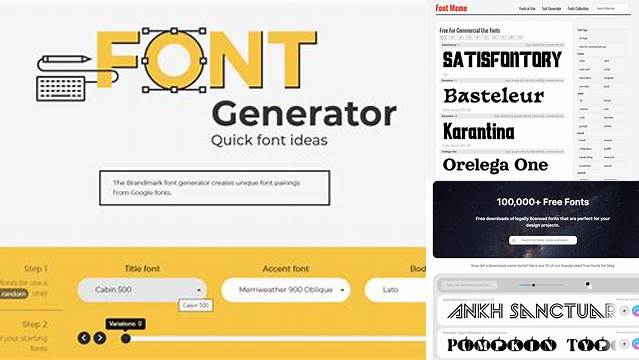
Free Font Maker: Create Fonts Online Instantly
Creating your own fonts can seem like a daunting task, but guys, it doesn't have to be! There are tons of amazing, free font creator tools available online that don't even require a download. That's right, you can jump right into designing your unique typeface without cluttering your computer with extra software. This article will walk you through the wonderful world of free font creation, exploring various tools and techniques to help you unleash your inner font designer. We'll cover everything from basic font design principles to specific software recommendations, ensuring you have all the knowledge you need to get started. So, let's dive in and discover how easy and fun it can be to craft your own fonts!
1. Online Font Maker: No Download Required
Okay, so you're itching to create your own font, but the thought of downloading software makes you cringe? I feel you! Luckily, there are some fantastic online font maker options that require absolutely no download. These tools are a game-changer for anyone who wants to dip their toes into font design without committing to hefty programs. One of the biggest perks of using an online font maker is the convenience. You can access them from any computer with an internet connection, making it super easy to work on your font projects on the go. Whether you're at home, at a coffee shop, or even traveling, your font design studio is always just a few clicks away. Plus, these tools often boast intuitive interfaces, making the design process smooth and enjoyable, even if you're a complete beginner. Many online font makers also offer a library of pre-made glyphs and templates, which can be a huge help for getting started or experimenting with different styles. You can customize these existing elements or start from scratch, the choice is entirely yours!
2. Best Free Font Creation Tools Online
So, you're ready to dive in, but which free font creation tools are actually worth your time? There are a bunch out there, but some definitely shine brighter than others. Finding the best tool for you depends a lot on your skill level and what you want to achieve. Are you looking for something super simple and user-friendly, or are you aiming for more advanced features and customization options? One popular option is Calligraphr, which lets you create a font based on your own handwriting. You simply download a template, fill it in with your letters and symbols, and then upload it to the website to generate your font. It's a fantastic choice for creating personalized, hand-drawn fonts. Another great tool is FontStruct, which uses a modular approach to font design. You build your glyphs using geometric shapes, making it perfect for creating unique, geometric-style fonts. FontStruct also has a large community of users who share their creations, so you can find tons of inspiration and even collaborate with other designers. And don't forget about BirdFont, a free and open-source font editor that offers a wide range of features for more advanced users.
3. Free Font Generator: Create Fonts Instantly
Want a font, like, yesterday? A free font generator might be your new best friend. These tools are designed for speed and ease of use, allowing you to whip up a unique font in minutes. While they might not offer the same level of control and customization as more advanced font editors, they're perfect for quick projects or when you need a specific font style in a pinch. The beauty of a free font generator lies in its simplicity. Typically, you'll be presented with a set of parameters or templates to choose from. You might be able to select a font style, adjust the thickness of the lines, or add a specific slant. Some generators even allow you to upload an existing font as a base and then tweak it to your liking. While the results might not be as polished as a font created from scratch, they can still be surprisingly effective, especially for headings, logos, or other design elements where a unique touch is desired. Plus, using a font generator is a fantastic way to experiment with different font styles and get a feel for font design without investing a ton of time and effort.
4. Create Your Own Font Online for Free
The idea of create your own font online for free might sound too good to be true, but trust me, it's totally possible! There are a plethora of online tools that empower you to design your very own typeface without spending a dime. This opens up a world of creative possibilities, allowing you to craft fonts that perfectly match your personal style or brand identity. The process of creating your own font online is often surprisingly straightforward. Many platforms offer intuitive interfaces with drag-and-drop functionality, making it easy to shape and manipulate glyphs. You can start from scratch, using drawing tools to create each letterform individually, or you can modify existing templates to speed up the process. One of the biggest advantages of using online font creation tools is the accessibility they provide. You can work on your fonts from anywhere with an internet connection, and you don't need to worry about installing or updating software. Plus, many online platforms offer collaboration features, allowing you to work on font projects with friends or colleagues.
5. Font Design Software Free Online
When you're venturing into font creation, finding the right font design software free online is crucial. The good news is that several robust options are available that won't break the bank. These platforms offer a range of features to help you craft unique and professional-looking fonts. When evaluating font design software, consider factors like ease of use, the availability of tutorials and support, and the range of features offered. Some software focuses on simplicity and intuitive interfaces, making them ideal for beginners. Others provide more advanced tools and options for experienced designers who want to fine-tune every detail of their fonts. Many free online font design software options include features like glyph editing, kerning and tracking adjustments, and the ability to import and export different font formats. Some even offer collaborative features, allowing multiple users to work on the same font project simultaneously. Experiment with a few different platforms to see which one best suits your needs and workflow.
6. Free Font Editor Online: No Download
Need to tweak an existing font or create a variation? A free font editor online that requires no download is a lifesaver! These tools allow you to modify existing fonts or create entirely new ones without the hassle of installing software. This is especially handy if you need to make a quick adjustment to a font you're already using or if you want to experiment with different font styles without committing to a specific program. The functionality of a free font editor online can vary, but most offer basic editing features such as modifying glyph shapes, adjusting spacing and kerning, and changing font weights and styles. Some editors also include more advanced features like adding ligatures or creating alternate glyphs. The convenience of using an online editor is undeniable. You can access it from any computer with an internet connection, and your work is often saved automatically in the cloud. This makes it easy to collaborate with others or to continue working on your font projects from different locations.
7. Online Font Creator for Free: Web-Based Tools
For those who love the flexibility of web-based applications, an online font creator for free is the perfect solution. These tools eliminate the need for software downloads, allowing you to design fonts directly in your browser. This accessibility makes font creation more convenient than ever, as you can work on your projects from any device with an internet connection. The best online font creators offer a range of features to support your design process. This often includes tools for drawing glyphs, adjusting spacing and kerning, and generating font files in various formats. Some platforms also provide templates and pre-made elements that can help you get started or experiment with different styles. The web-based nature of these tools also facilitates collaboration. Many platforms allow you to share your fonts with others, get feedback, or even work on projects together in real-time. This can be especially beneficial for team projects or for designers who want to gather input from their peers.
8. Free Font Making Software Online
If you're serious about font design but don't want to shell out a fortune, free font making software online is your answer. There are some surprisingly powerful tools available that offer a wide range of features without costing a dime. These platforms empower you to create professional-quality fonts from the comfort of your browser. When choosing free font making software, consider your specific needs and skill level. Some software is designed for beginners, with intuitive interfaces and helpful tutorials. Others cater to more experienced designers, offering advanced features and customization options. Key features to look for include glyph editing tools, kerning and tracking controls, the ability to import and export various font formats, and support for OpenType features like ligatures and alternates. Many free online font making software options also have active communities, where you can find inspiration, get feedback, and learn from other designers.
9. Free Online Font Generator: Design Your Own
Ready to unleash your creativity? A free online font generator lets you design your own typeface without any software downloads. These tools are perfect for experimenting with different styles and creating unique fonts for your projects. The process is often surprisingly simple. Most free online font generators offer a user-friendly interface where you can draw glyphs, adjust letter spacing, and customize other font characteristics. Some generators even provide templates or pre-designed elements that you can use as a starting point. While these tools might not offer the same level of control as professional font design software, they're a great option for creating custom fonts for headings, logos, or other design elements. Plus, they're a fantastic way to learn the basics of font design and develop your typographic skills.
10. Create Fonts Online Free: No Download Needed
The convenience of being able to create fonts online free without any downloads is a huge draw for many designers. These tools offer a hassle-free way to bring your font ideas to life, as you can access them from any device with an internet connection. This flexibility makes them ideal for designers who are always on the go or who want to collaborate with others remotely. When you create fonts online free, you'll typically have access to a range of features, including glyph editing tools, kerning and tracking adjustments, and the ability to export your fonts in various formats. Some platforms also offer collaboration features, allowing you to share your fonts with others or work on projects together in real-time. The absence of downloads also means you don't need to worry about software updates or compatibility issues. You can simply log in to the website and start designing, knowing that you're always using the latest version of the software.
11. Free Font Creator Software Online
Exploring free font creator software online opens up a world of possibilities for budding typographers and seasoned designers alike. These online platforms provide the tools needed to craft unique typefaces without the commitment of expensive software or hefty downloads. The beauty of free font creator software lies in its accessibility; you can start designing from virtually any device with an internet connection. Many platforms offer intuitive interfaces, making the process of glyph creation, spacing adjustments, and overall font refinement manageable even for those new to typography. Features often include drawing tools, kerning and tracking adjustments, and the ability to generate font files in various formats. Some even allow for collaborative work, making it easier to share and refine font designs within a team. Diving into these free online font creation tools not only saves you money but also empowers you to express your creativity in the world of typography.
12. Online Font Maker Free: Design Your Own Font
Embracing the digital age, the concept of using an online font maker free to design your own font is both exciting and practical. This approach eliminates the need for software installation, offering a convenient way to express your creativity through unique typography. With an online font maker, you gain access to a design environment directly in your browser, allowing you to craft personalized fonts from any location with internet access. These platforms typically feature user-friendly interfaces, making the design process accessible to a wide range of users, from beginners to experienced designers. Functionalities often include tools for drawing and editing glyphs, adjusting letter spacing, and customizing font attributes. Many free online font makers also offer templates or pre-designed elements to help kickstart your creative process. This method of font creation is not only cost-effective but also a fantastic way to experiment with typography and develop your unique style.
13. Free Online Font Editor: Modify Existing Fonts
For those looking to tweak or enhance existing fonts, a free online font editor offers a practical solution without the burden of software downloads. These tools are invaluable for making small adjustments, creating variations, or even completely overhauling a typeface to suit specific needs. The ease of access is a significant advantage; you can simply upload a font to the online editor and begin modifying it immediately, without any installation process. Features commonly found in a free online font editor include glyph modification tools, kerning and tracking adjustments, and the ability to alter font weights and styles. Some editors may also offer more advanced functionalities, such as adding ligatures or creating alternate characters. The flexibility provided by these online font editors is particularly useful for designers who need to quickly adapt a font to fit a particular project or brand aesthetic.
14. Font Creator Online Free: No Installation Required
The allure of a font creator online free with no installation required is hard to deny, especially for those who value convenience and accessibility. These web-based tools allow you to jump right into font design without the hassle of downloading or installing any software. This is particularly beneficial for designers who work across multiple devices or who prefer to avoid cluttering their computers with additional applications. With a font creator online, you can access your design workspace from anywhere with an internet connection, making it easy to work on projects on the go. These platforms typically offer a range of features, including glyph creation tools, spacing adjustments, and the ability to generate font files in various formats. Many free online font creators also provide templates and pre-made elements to help you get started, making the font design process more approachable and enjoyable.
15. Free Online Font Maker: Beginner-Friendly Tools
For newcomers to the world of typography, free online font maker options with beginner-friendly tools are an excellent starting point. These platforms are designed to make the font design process accessible and enjoyable, even for those with little to no experience. The focus is often on intuitive interfaces and streamlined workflows, allowing beginners to quickly grasp the fundamentals of font creation. Common features in beginner-friendly font makers include drag-and-drop functionality, pre-designed templates, and helpful tutorials or guides. These tools typically offer basic glyph editing capabilities, allowing you to create and modify letterforms, adjust spacing, and experiment with different styles. While they may not have the advanced features of professional font design software, they provide a valuable introduction to typography and a platform to develop your skills. Embracing these free online tools is a great way to explore your creative potential in font design.
16. Creating Fonts Online Free: Export Options
When creating fonts online free, understanding the export options available is crucial. The ability to export your font in various formats ensures compatibility across different platforms and applications. Most online font creators offer common font formats like TTF (TrueType Font) and OTF (OpenType Font), which are widely supported by operating systems and software. Some platforms may also offer other export options, such as SVG or WOFF, which are particularly useful for web design. The choice of format often depends on the intended use of the font. For example, OTF fonts offer more advanced features and better cross-platform compatibility compared to TTF fonts. When creating fonts online, it's important to check the export options to ensure that you can use your font in your desired applications and projects.
17. Free Online Font Design: Collaborative Features
Free online font design tools with collaborative features are revolutionizing the way fonts are created, allowing designers to work together seamlessly regardless of their location. These platforms enable multiple users to access and edit the same font project simultaneously, fostering teamwork and enhancing the creative process. Collaborative features often include real-time editing, commenting, and version control, making it easier to share ideas and provide feedback. This approach is particularly beneficial for design teams, agencies, or anyone who wants to involve others in the font creation process. By leveraging the power of collaborative online font design, teams can streamline their workflow, improve communication, and ultimately create better fonts.
18. Font Maker Free Online: Using Templates
A font maker free online that offers using templates is a fantastic resource for both beginners and experienced designers. Templates provide a starting point for font creation, helping to streamline the design process and inspire new ideas. These templates can range from basic letterforms to more complex glyph designs, allowing you to customize them to create your unique typeface. Using templates in a free online font maker can save time and effort, especially when you're working on a large character set. They can also serve as a learning tool, helping you understand the structure and proportions of different font styles. Whether you're a novice or a seasoned designer, leveraging templates can be a valuable asset in your font creation journey.
19. Free Font Creator No Download: Mobile Options
For designers who are always on the move, the availability of free font creator no download tools with mobile options is a game-changer. These platforms allow you to design fonts directly from your smartphone or tablet, providing the flexibility to work on your projects wherever you are. Mobile font creators often feature touch-friendly interfaces and streamlined workflows, making it easy to create and edit glyphs on a smaller screen. While mobile options may not offer the same level of features as desktop software, they provide a convenient way to sketch out ideas, make quick edits, or even create entire fonts on the go. The freedom to design fonts on your mobile device expands your creative possibilities and ensures that you can always work on your projects, no matter where life takes you.
20. Free Online Font Generator: Geometric Fonts
If you're drawn to clean lines and structured designs, a free online font generator specializing in geometric fonts can be an invaluable tool. These generators allow you to create fonts with a distinct geometric aesthetic, characterized by precise shapes, consistent proportions, and a modern feel. Geometric fonts are often used in logos, headlines, and other design elements where a strong, contemporary look is desired. A free online font generator can simplify the process of creating geometric fonts by providing pre-defined shapes and tools for precise manipulation. You can experiment with different geometric forms, line weights, and spacing to create a font that perfectly matches your vision. Whether you're a seasoned designer or a beginner, these generators offer a fun and accessible way to explore the world of geometric typography.
21. Create Font Free Online: Handwritten Styles
For those seeking a personal and authentic touch, the ability to create font free online in handwritten styles is a fantastic option. These tools allow you to digitize your own handwriting or create fonts that mimic the look and feel of handwritten text. Handwritten styles are perfect for adding a human element to your designs, whether it's for invitations, greeting cards, or branding materials. When you create font free online in a handwritten style, you can often customize various aspects, such as stroke thickness, slant, and character variations. Some tools even allow you to upload a sample of your handwriting and automatically generate a font based on your unique style. This approach to font creation offers a unique opportunity to infuse your designs with your personality and create a truly one-of-a-kind typeface.
22. Font Creation Software Online Free: Script Fonts
If you're captivated by the elegance and fluidity of script typefaces, exploring font creation software online free specifically for script fonts is a must. These tools provide the features and functionalities needed to craft flowing, calligraphic-style fonts that exude sophistication and charm. Script fonts are often used in invitations, logos, and other design elements where a touch of elegance is desired. Font creation software online free for script fonts typically includes tools for creating smooth curves, connecting letterforms seamlessly, and adding decorative flourishes. You can experiment with different styles, from classic calligraphic scripts to more modern and playful designs. Whether you're an experienced typographer or a budding designer, these tools offer a gateway to the art of script font creation.
23. Free Font Design Online: Display Fonts
Free font design online tools that cater to display fonts offer a unique opportunity to create impactful and attention-grabbing typefaces. Display fonts are designed for use in headlines, logos, and other large-format applications, where they can make a bold statement. These fonts often feature unique shapes, intricate details, and a high degree of visual flair. When engaging in free font design online for display fonts, you can experiment with a wide range of styles, from bold and geometric to ornate and decorative. The key is to create a typeface that is both visually striking and legible at larger sizes. Many online font design tools provide features specifically tailored for display font creation, such as tools for creating complex outlines, adding shadows and gradients, and generating alternate characters.
24. Online Font Editor Free: Kerning and Spacing Adjustments
Mastering kerning and spacing is crucial for creating professional-looking fonts, and an online font editor free provides the tools you need to fine-tune these aspects. Kerning refers to the adjustment of space between individual letter pairs, while spacing (also known as tracking) adjusts the overall spacing between all characters in a font. Proper kerning and spacing ensure that your font is legible and visually appealing. An online font editor free typically offers features for adjusting kerning values for specific letter pairs, as well as for modifying the overall spacing of the font. Experimenting with these settings is essential for achieving a balanced and harmonious typeface. Even subtle adjustments can make a significant difference in the overall appearance of your font.
25. Free Font Generator Online: Web Fonts
If you're designing for the web, a free font generator online that specializes in web fonts is an indispensable tool. Web fonts are specifically optimized for use on websites, ensuring that your text displays correctly across different browsers and devices. A free font generator online can help you convert your existing fonts into web-friendly formats, such as WOFF, WOFF2, and EOT. These formats are designed to reduce file size and improve loading times, ensuring a smooth user experience. Some generators also offer features for subsetting fonts, which involves removing unused characters to further reduce file size. By using a free online font generator for web fonts, you can ensure that your website typography looks its best and performs optimally.
26. Free Font Making Software: OpenType Features
For advanced font design, exploring free font making software that supports OpenType features is essential. OpenType features are advanced typographic capabilities that allow you to add stylistic alternates, ligatures, swashes, and other enhancements to your fonts. These features can significantly enhance the visual appeal and versatility of your typefaces. Free font making software that supports OpenType features typically provides tools for creating and managing these advanced typographic elements. You can define alternate glyphs for specific characters, create ligatures for common letter combinations, and add swashes and other decorative elements. By mastering OpenType features, you can create fonts that are not only visually stunning but also highly functional and expressive.
27. Online Font Creator Free: Importing Images
A unique feature offered by some online font creator free platforms is the ability to importing images as a basis for glyph design. This capability opens up exciting possibilities for creating fonts with unique and personalized letterforms. By importing images, you can trace over existing artwork, photographs, or other visual elements to create custom glyphs. This can be particularly useful for creating decorative fonts, logo fonts, or fonts that incorporate specific visual themes. The process typically involves importing an image into the font editor and then using drawing tools to trace the desired shapes. The imported image serves as a guide, allowing you to create precise and consistent glyphs based on your chosen visual source.
28. Free Online Font Maker: Layering Techniques
Elevate your font designs by exploring layering techniques with a free online font maker. Layering involves creating multiple versions of a font and stacking them on top of each other to achieve unique visual effects. This technique can be used to create fonts with drop shadows, outlines, 3D effects, or color variations. A free online font maker that supports layering techniques typically allows you to create multiple glyph layers and adjust their positioning, color, and opacity. You can experiment with different combinations of layers to achieve a wide range of visual styles. Layering techniques add depth and dimension to your fonts, making them stand out and create a lasting impression.
29. Font Creator Free Online: Exporting SVG Fonts
For maximum flexibility and scalability, consider using a font creator free online that supports exporting SVG fonts. SVG (Scalable Vector Graphics) is a vector-based image format that allows fonts to be scaled to any size without losing quality. This makes SVG fonts ideal for use in web design, logos, and other applications where scalability is crucial. A font creator free online that allows you to export SVG fonts typically generates a single SVG file that contains all the glyph outlines. This file can then be embedded directly into your website or used in other vector graphics applications. SVG fonts offer excellent performance and visual fidelity, making them a popular choice for modern font design.
30. Free Online Font Generator: Pixel Fonts
For a retro aesthetic and a touch of nostalgia, explore free online font generator options that specialize in pixel fonts. Pixel fonts are designed with individual pixels, creating a blocky, low-resolution appearance that harkens back to the early days of computer graphics. These fonts are often used in video games, retro-themed designs, and other projects where a pixelated look is desired. A free online font generator for pixel fonts typically provides a grid-based interface where you can create glyphs pixel by pixel. You can adjust the size of the grid, the spacing between characters, and other parameters to create a pixel font that perfectly matches your vision. Embrace the charm of pixel fonts and add a retro touch to your designs.